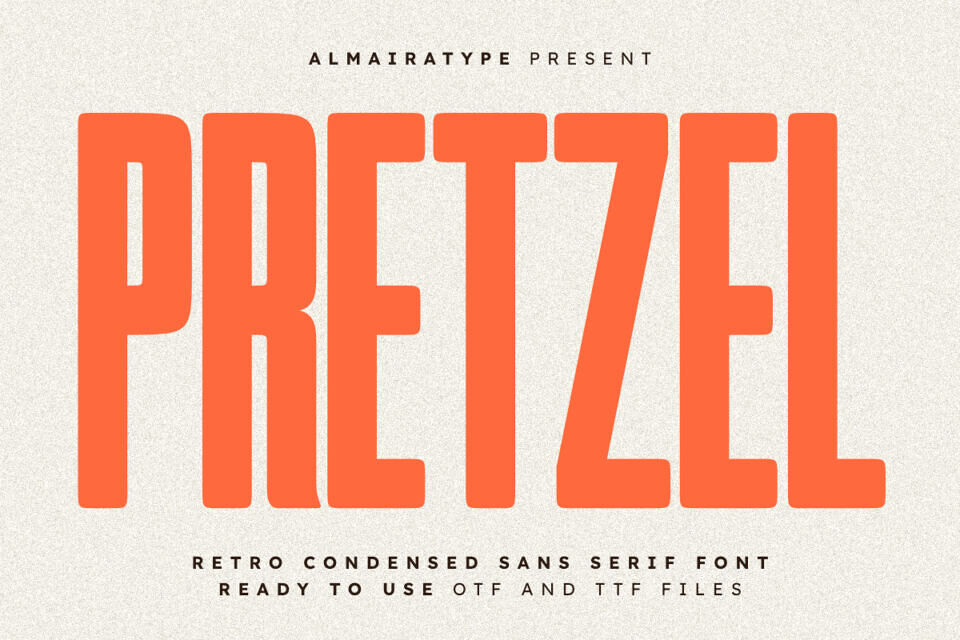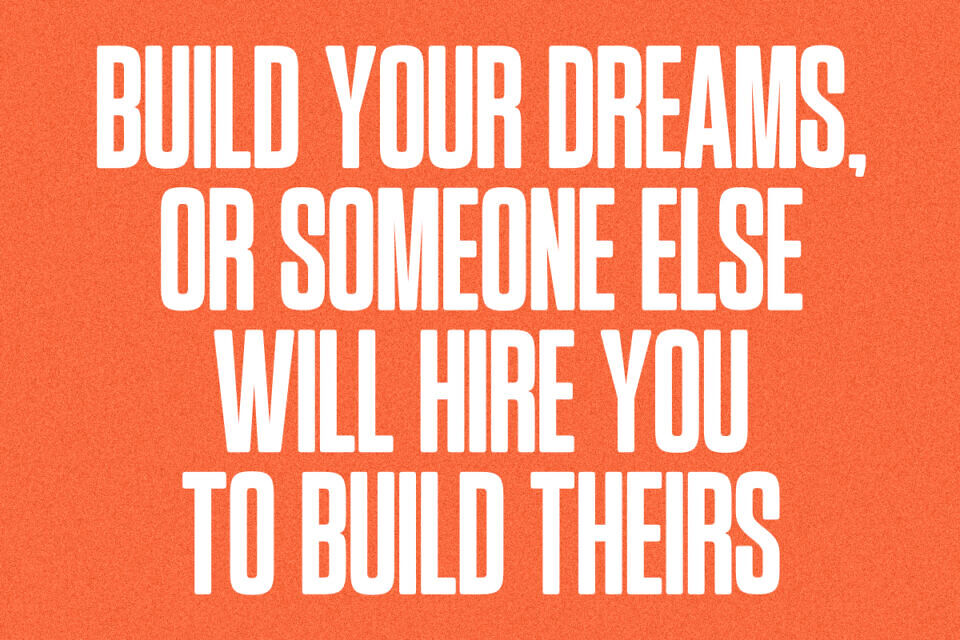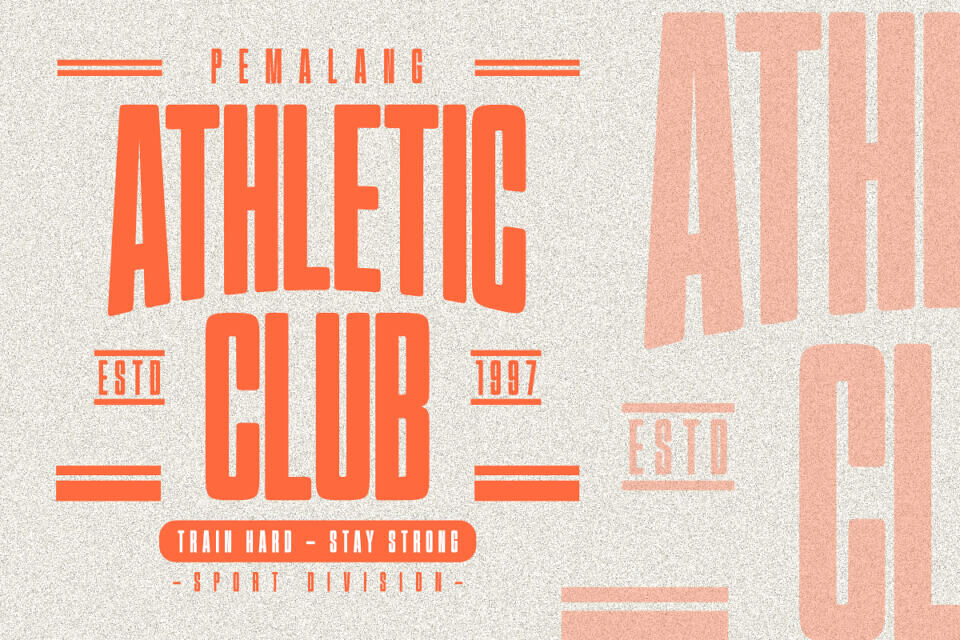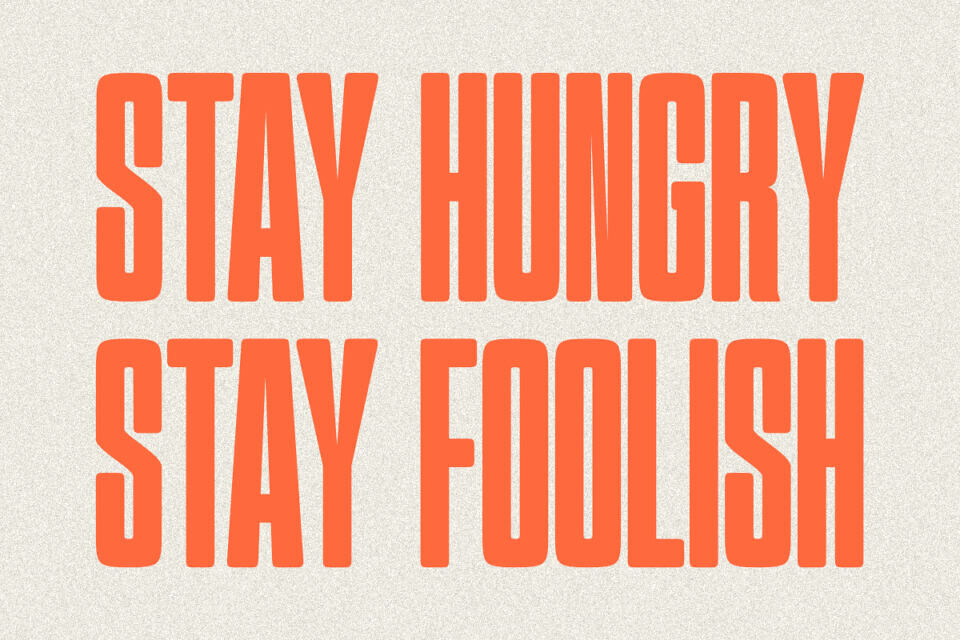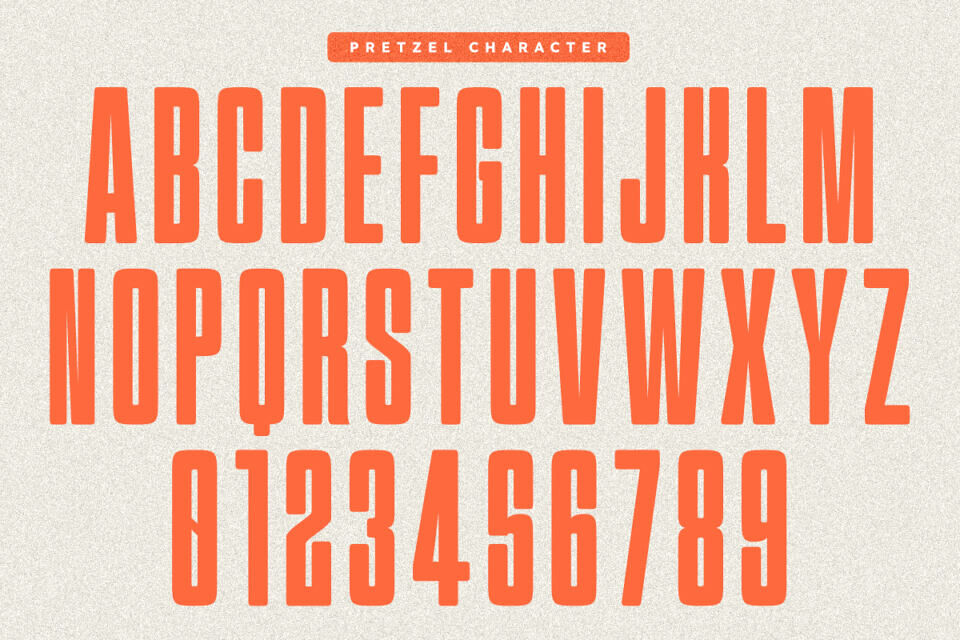
Pretzel is a bold and striking retro condensed sans serif font carefully curated to bring a delightful vintage warmth to your modern creative projects. Featuring a beautifully tall, compressed structure with smooth, slightly rounded structural finishes, this typeface perfectly bridges the gap between retro nostalgia and modern clean typography.
Whether you are building an identity for a trendy cafe, designing casual streetwear t-shirts, publishing editorial headlines, or curating bold social media content, Pretzel ensures high readability and an effortlessly cool, professional aesthetic.